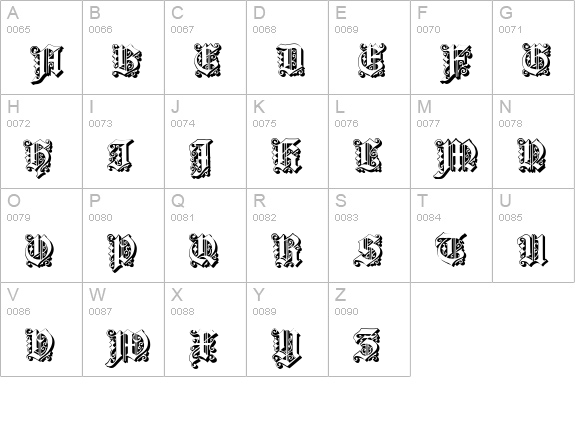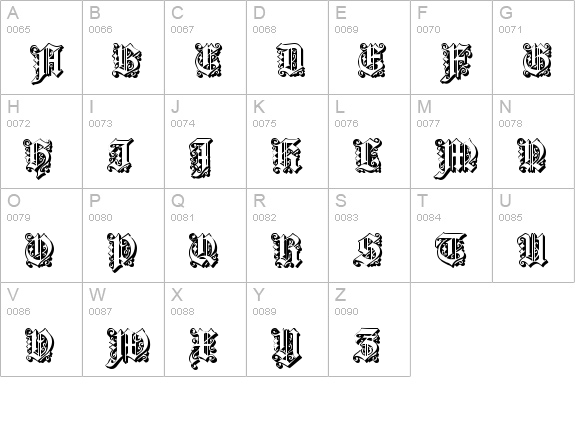
Dearest Open Font Details
Dearest Open font is a mesmerizing typeface that captures the essence of elegance and sophistication. With its delicate strokes and graceful curves, this font exudes a sense of charm and refinement. It is a perfect choice for projects that require a touch of sophistication and class. What makes Dearest Open font even more remarkable is that it is available for free. Yes, you heard it right! This stunning font can be downloaded at FontsMarket.com without any cost. Whether you are a designer, a blogger, or simply someone who appreciates beautiful typography, Dearest Open font is a must-have in your collection. The versatility of Dearest Open font is another reason why it stands out. It can be used for various purposes, from invitations and wedding cards to branding materials and social media graphics. Its clean lines and legible characters make it suitable for both print and digital designs. Furthermore, Dearest Open font offers a wide range of glyphs and special characters, allowing you to add a unique touch to your designs. From decorative swashes to stylish ligatures, this font provides endless possibilities for creative expression. Not only does Dearest Open font possess aesthetic appeal, but it also ensures readability. Its well-crafted letterforms and balanced spacing make it easy to read even at smaller sizes. Whether your design needs a headline or body text, Dearest Open font delivers clarity and visual harmony. So, why wait? Embrace the beauty and elegance of Dearest Open font today. Download it for free at FontsMarket.com and elevate your designs to new heights. Whether you're a professional designer or an enthusiast, this font is sure to leave a lasting impression on your audience.